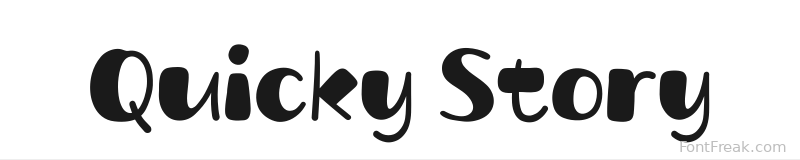
Quicky Story
Quicky Story by Syaf Rizal is a charming display font that brings a sense of whimsy and creativity to any project. This unique typeface falls within the decorative category, characterized by its playful letterforms that exude a friendly and approachable vibe. The font features a medium stroke weight with subtle variations that create a delightful contrast, making it visually engaging without overwhelming the reader. Its generous spacing allows for easy readability, while the rounded edges of the letters add to its inviting nature, making it a perfect choice for various design applications.
The Quicky Story font shines in several specific use cases. It is particularly well-suited for wedding invitations, where its lighthearted style can convey a sense of joy and celebration. Additionally, this font works wonderfully on movie posters, especially for family-friendly or animated films, where its playful character can capture attention. Restaurant menus can benefit from its unique flair, making the dining experience feel more welcoming and informal. Furthermore, content creators can utilize this font in social media graphics and blog headers, ensuring their visuals stand out in a crowded digital landscape.
What sets Quicky Story apart is its ability to blend fun and functionality. This font not only captures attention but also maintains clarity, making it a versatile choice for a wide range of design needs. Download the Quicky Story font free today and elevate your creative projects with its delightful charm.